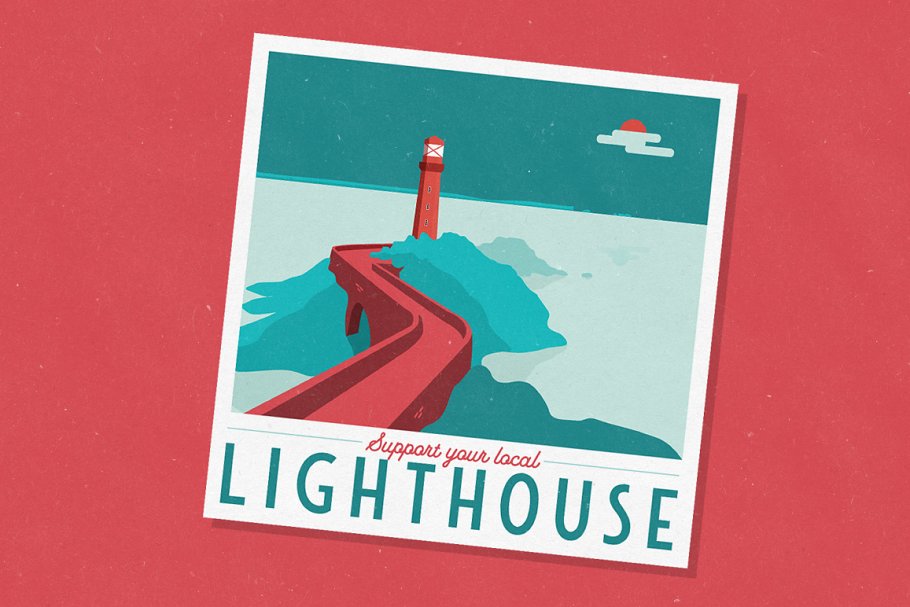
Looking to add a touch of elegance and personality to your designs? Look no further than Montebello - Script Typeface, a stunning collection of fonts created by the talented Ian Barnard. Whether you're a professional designer or a DIY enthusiast, these fonts will take your creations to a whole new level.
Imagine yourself transported to a paradise getaway, where warm sand tickles your toes and a refreshing cocktail is just an arm's reach away. Montebello font captures the essence of this idyllic scene, infusing your designs with a sense of tranquility and beauty. It's like a mini vacation for your eyes!
With Montebello Script, Ian Barnard set out to create a cursive script typeface that is not only easy to read but also exudes a unique personality. Each letter connects seamlessly, ensuring a smooth and flowing look. It's the perfect choice for wedding invitations, branding projects, and any design that calls for an elegant touch.
Complementing the script font is Montebello Sans, a simple yet stylish sans-serif typeface. Inspired by the travel posters of the 1950s, this font brings a hint of art deco flair to your designs. Its low cross bars add a touch of modernity, making it the ideal partner for the script font.
For those seeking a more textured and rugged look, Montebello Script Textured is the perfect choice. This roughened and textured version adds depth and character to your designs, giving them a vintage and handcrafted feel. It's perfect for posters, signage, and any project that requires a touch of nostalgia.
If you prefer a softer and more rounded aesthetic, Montebello Sans Rounded is the font for you. This version of the standard sans font features gentle curves and a friendly demeanor. It's like a warm hug for your design projects.